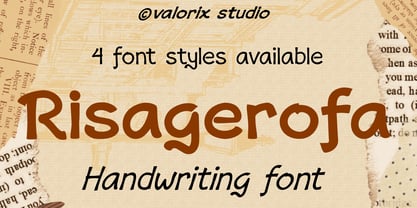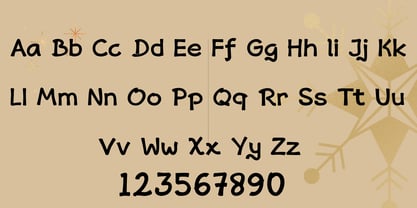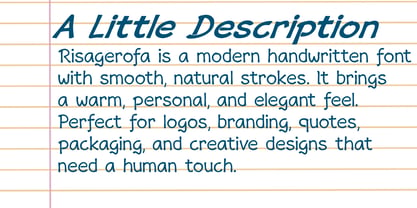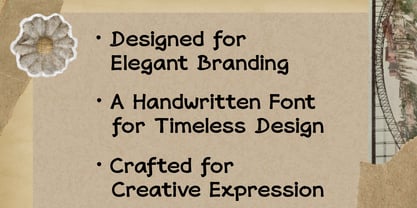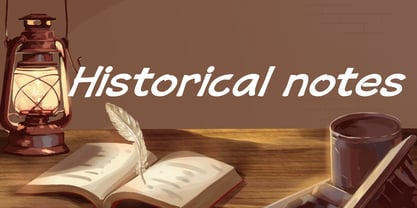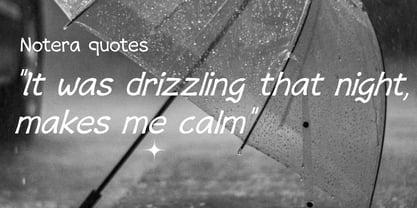
Risagerofa
by Valorix Studio
The Risagerofa Font Family was designed by Erick Rismawan Valorix and published by Valorix Studio. Risagerofa contains 4 styles and family package options. More about this family
Risagerofa is a handwritten typeface that captures the natural flow and expressive charm of personal lettering. Designed with organic strokes and balanced rhythm, it brings warmth and authenticity to every composition. Its fluid forms and subtle variations create a realistic handwritten feel while maintaining clarity and consistency. Risagerofa works beautifully for branding, packaging, invitations, social media graphics, logos, and creative editorial layouts. Whether you are crafting a modern brand identity or adding a personal touch to your designs, Risagerofa delivers character, movement, and elegance in every letter.
Designers: Erick Rismawan Valorix
Foundry: Valorix Studio
Valorix Studio is an independent type foundry specializing in creating display and decorative typefaces with a modern and distinctive character. We craft a wide range of fonts designed to emphasize strong visual identity and creative expression. Each typeface is developed with attention to detail, balance, and aesthetic value—making it an ideal choice for branding, posters, packaging, and other creative projects that demand a bold and unique touch.